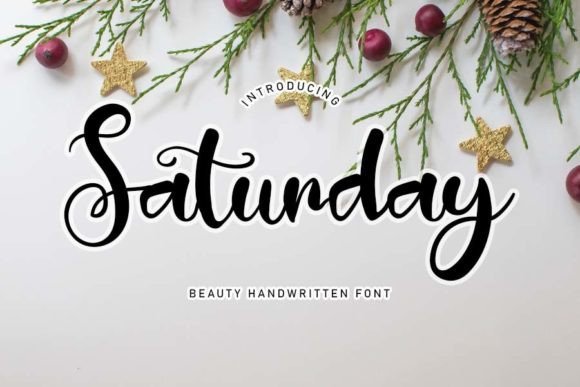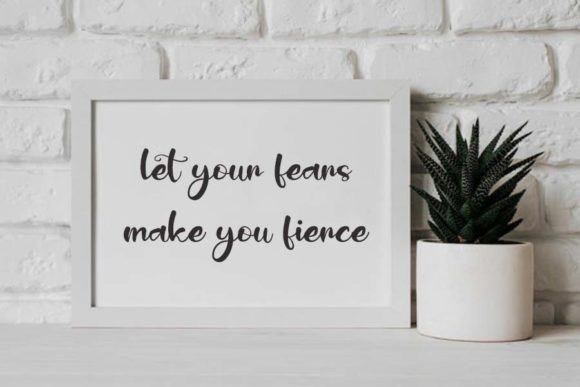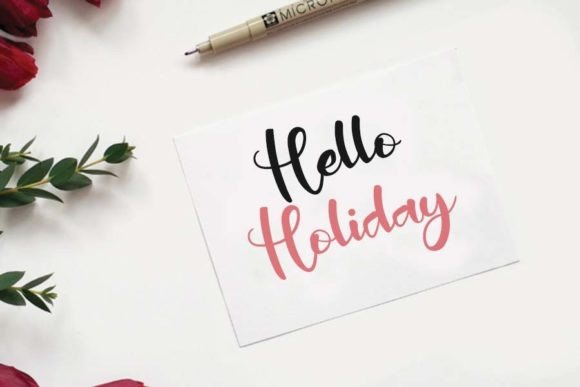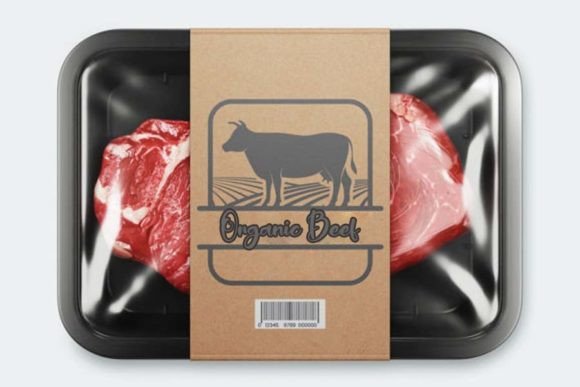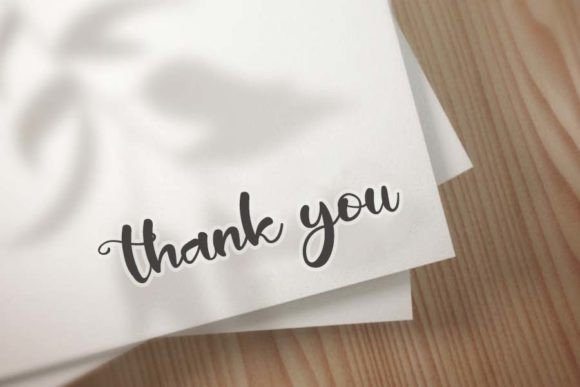
Saturday Font
Add Unique Charm with Saturday Font
The Saturday font is an incredibly unique handwritten script, masterfully designed to become a favorite for creative professionals and enthusiasts alike. Its distinctive style brings personality and originality to every project, helping you stand out in the crowded design world.
Perfect for Creative Projects and Branding
The Saturdayfont is ideal for a wide range of creative applications including logos, branding, invitations, social media graphics, posters, packaging, and more. Its handcrafted strokes add a personal and authentic touch to your work, making your designs memorable and impactful.
A Handwritten Script with Distinctive Style
Each character in the Saturday font is carefully crafted to deliver smooth, flowing lines combined with unique letterforms. This balance ensures readability while maintaining a stylish and creative flair, perfect for headlines, logos, and decorative text elements.
Despite its unique style, the Saturday font maintains excellent readability across different sizes. Whether used for bold titles or smaller details, it balances artistic expression with clarity, making it a versatile choice for many creative projects.
Elevate Your Designs with Saturday’s Unique Spirit
Typography defines the character of your designs, and Saturday adds a fresh and distinctive spirit. If you want to elevate your creative projects with a unique handwritten script, download the Saturdayfont today and create stunning, unforgettable visuals.